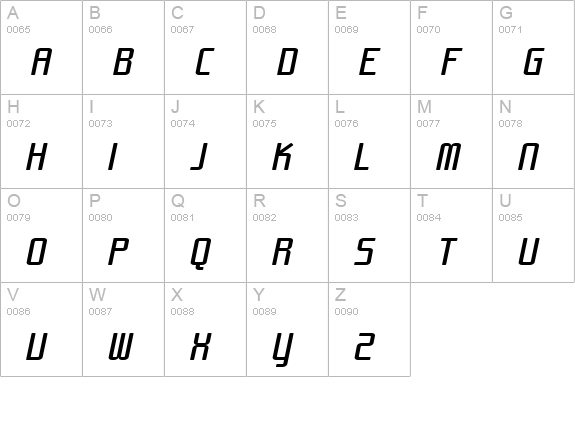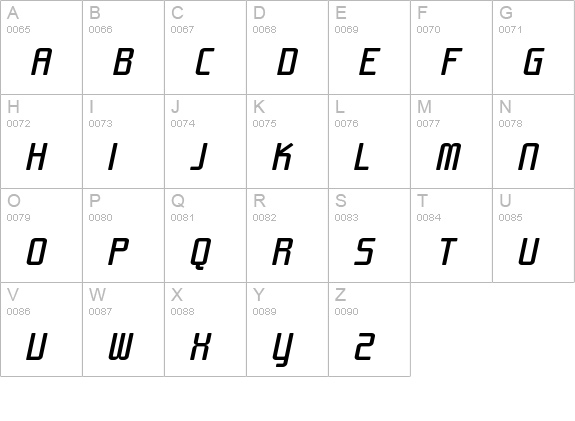
SF Chrome Fenders Extended Oblique Font Details
SF Chrome Fenders Extended Oblique is a distinctive, extended-width, italic variant in the SF typeface family \xE2\x80\x94 well suited to design and typography projects.
SF Chrome Fenders Extended Oblique is a sleek and modern font that exudes confidence and sophistication. With its extended and oblique design, this font effortlessly captures attention and adds a touch of edginess to any project. The clean and crisp lines of SF Chrome Fenders Extended Oblique make it perfect for a wide range of applications, from logos and branding to headlines and advertisements. Its versatility allows it to be used in both digital and print formats, ensuring that your message is conveyed with clarity and impact. One of the standout features of SF Chrome Fenders Extended Oblique is its free availability. This means that you can download and use this fantastic font without having to spend a dime. FontsMarket.com is the place to go to get your hands on this font, making it easily accessible to designers and creatives alike. Whether you're working on a professional project or a personal endeavor, SF Chrome Fenders Extended Oblique is a font that will elevate your designs to new heights. Its bold and sleek appearance will leave a lasting impression, making it a valuable asset in your font collection. So don't wait any longer – head over to FontsMarket.com and download SF Chrome Fenders Extended Oblique for free. Unleash your creativity and let this remarkable font take your designs to the next level.